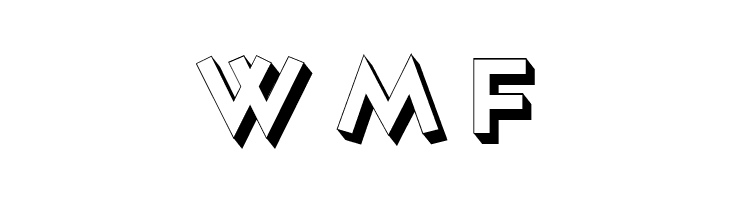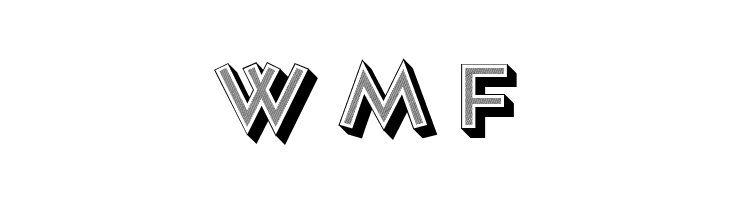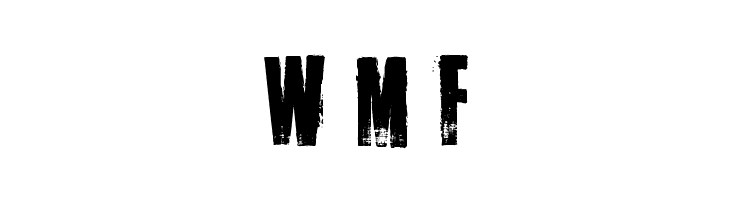
ambulance shotgun Font
Font by Gyom Seguin - last-soundtrack.daportfolio.com
A bold, distressed font with a gritty, textured appearance.
ShotgunWedding Font
Font by Kevin Christopher - www.kcfonts.com
A bold, distressed font with a grunge, spray-painted effect.
Shotgunµ Font
Font by dcoxy | Greg Medina
A bold, distressed font with a rugged, grunge-like texture.
Shotgun Hollow Regular Font
A bold, 3D hollow font with a striking geometric design.
ShotGuns Font
A bold, distressed font with a rugged, grunge-like appearance.
Dolphin with a Massive Shotgun Font
A bold, slanted, and distressed display font with a gritty urban style.
Ambulance Pixie Dust Font
A bold, pixelated font with a retro digital style.
Shotgun Regular Font
A bold, three-dimensional font with strong shadow effects and geometric structure.
Shotgun_PersonalUseOnly Font
A bold, distressed font with a grunge, textured style.